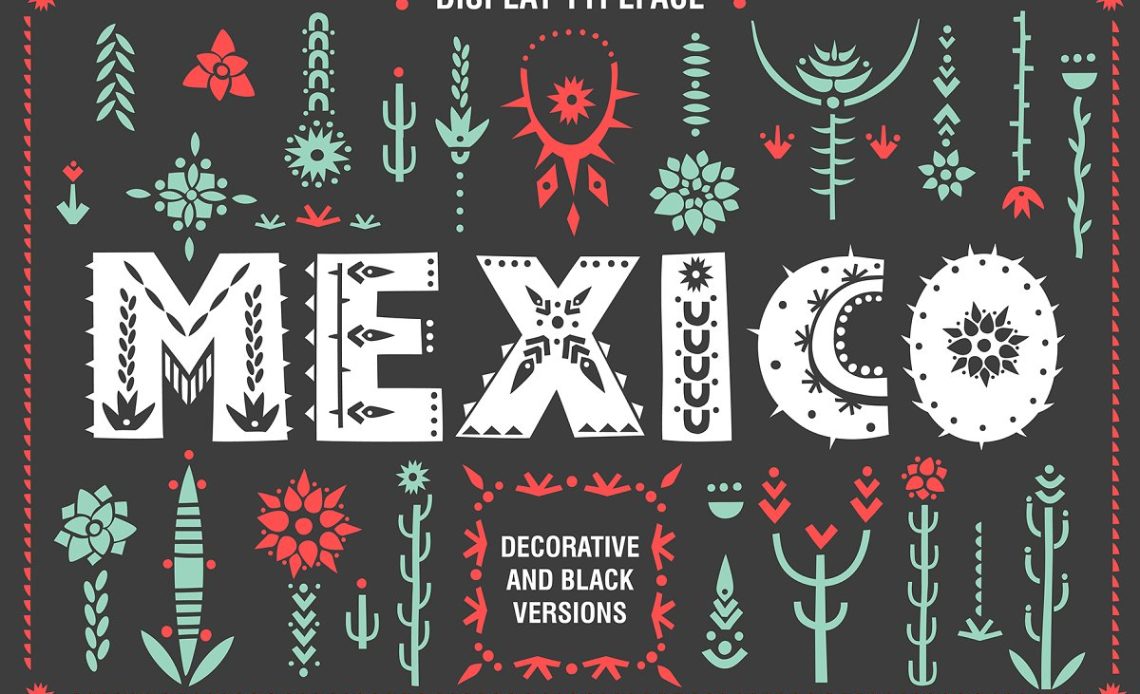
Are you searching for a unique font to enhance your designs? Look no further than Mexico - Font Family, the best font for savage designs! Created by Victoria Strukovskaya, this sans-serif display font is the perfect addition to your collection.
The Mexico font family includes two fonts: decorative and black. Each font features floral ornaments inspired by Mexican landscapes, giving your designs a touch of creativity and individuality. You'll also receive a small clipart with stylized desert plants that you can easily combine with the letters to create your own unique designs.
With Mexico font family, the possibilities are endless! Use it to create stunning prints on clothing, eye-catching photo overlays, and branding for your business. It's easy to use with other design programs or without one at all.